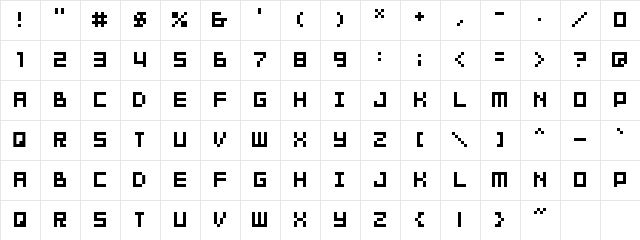
t0v3v4Version2 Regular Font Preview
t0v3v4Version2 Regular
t0v3v4Version2 Regular Font Details
Design Context for t0v3v4Version2 Typeface
t0v3v4Version2 offers clean, dependable letterforms without strong stylistic allegiance, making it a practical choice for designers who need flexibility.